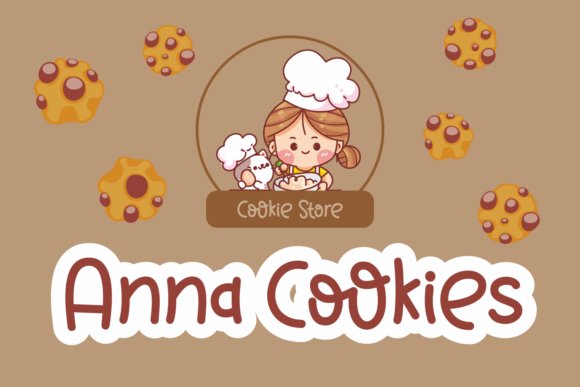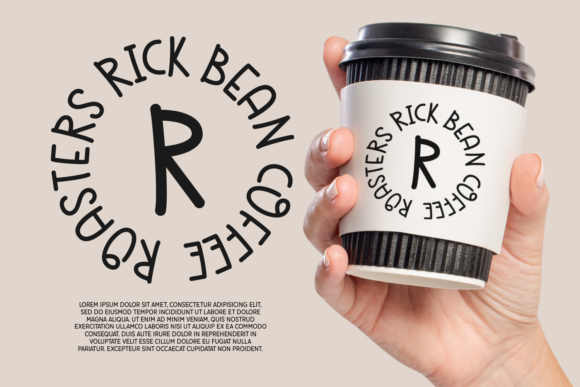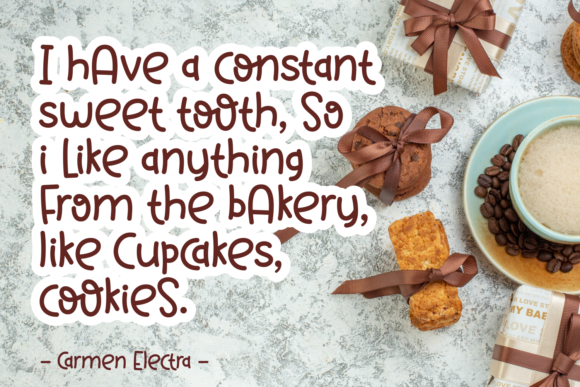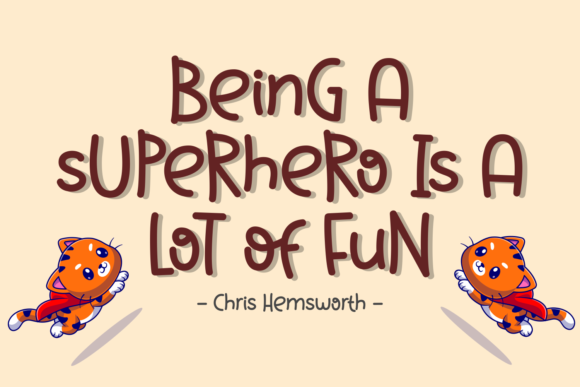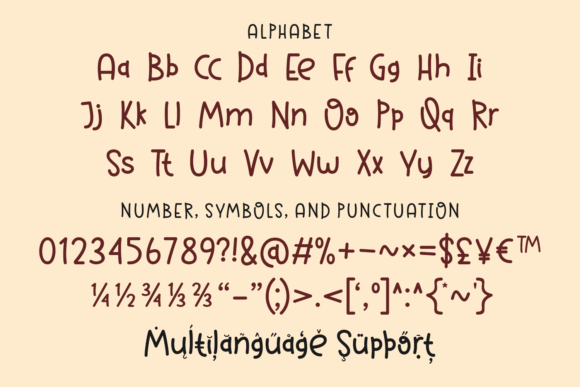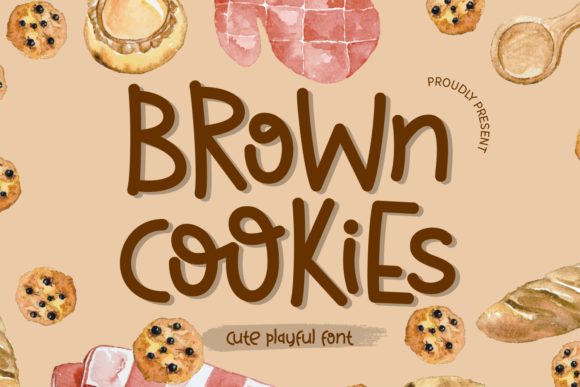
Brown Cookies Font: The Perfect Playful and Unique Display Font for Designers and Crafters
Are you tired of using the same old fonts for your designs? Look no further than the Brown Cookies font, a playful and unique display font that’s sure to add a touch of whimsy to your projects. With its thin character set and creative skinny typeface, Brown Cookies is perfect for designers and crafters looking to add some personality to their work.
What is Brown Cookies Font?
Brown Cookies font is a display font that features a thin character set, giving it a sleek and modern look. The font is playful and unique, making it perfect for use in a variety of design projects, from quotes and branding purposes to logos and packaging designs. Its creative skinny typeface is sure to grab attention and add a touch of personality to your work.
Uses for Brown Cookies Font
So, what can you use the Brown Cookies font for? The possibilities are endless! Here are a few ideas to get you started:
- Quotes: Use Brown Cookies to add a touch of whimsy to your quotes and sayings. The font’s playful and unique style is sure to make your quotes stand out.
- Branding purposes: Add a personal touch to your brand with the Brown Cookies font. Its creative skinny typeface is perfect for use in logos, business cards, and other marketing materials.
- Logos: Create a unique and eye-catching logo with the Brown Cookies font. Its thin character set and playful style make it perfect for use in logos and other branding materials.
- Packaging designs: Add a touch of personality to your packaging designs with the Brown Cookies font. Its creative skinny typeface is sure to grab attention and make your products stand out.
- Fashion branding: Use Brown Cookies to add a touch of style and sophistication to your fashion branding. The font’s playful and unique style is perfect for use in fashion logos, labels, and other marketing materials.
Why Choose Brown Cookies Font?
So, why choose the Brown Cookies font for your design projects? Here are just a few reasons:
- Unique style: The Brown Cookies font features a unique and playful style that’s sure to add a touch of personality to your designs.
- Thin character set: The font’s thin character set gives it a sleek and modern look that’s perfect for use in a variety of design projects.
- Creative skinny typeface: The Brown Cookies font features a creative skinny typeface that’s sure to grab attention and make your designs stand out.
- Versatile: The Brown Cookies font is versatile and can be used in a variety of design projects, from quotes and branding purposes to logos and packaging designs.
Tips for Using Brown Cookies Font
Here are a few tips for using the Brown Cookies font in your design projects:
- Use it sparingly: Because of its playful and unique style, it’s best to use the Brown Cookies font sparingly. Use it to add a touch of personality to your designs, but avoid overusing it.
- Pair it with other fonts: The Brown Cookies font pairs well with other fonts, such as sans-serif fonts. Experiment with different font combinations to find the perfect look for your designs.
- Experiment with colors: The Brown Cookies font looks great in a variety of colors. Experiment with different colors to find the perfect look for your designs.
In conclusion, the Brown Cookies font is a playful and unique display font that’s perfect for designers and crafters looking to add some personality to their work. With its thin character set and creative skinny typeface, Brown Cookies is versatile and can be used in a variety of design projects, from quotes and branding purposes to logos and packaging designs. So why not give it a try and see how it can add a touch of whimsy to your designs?